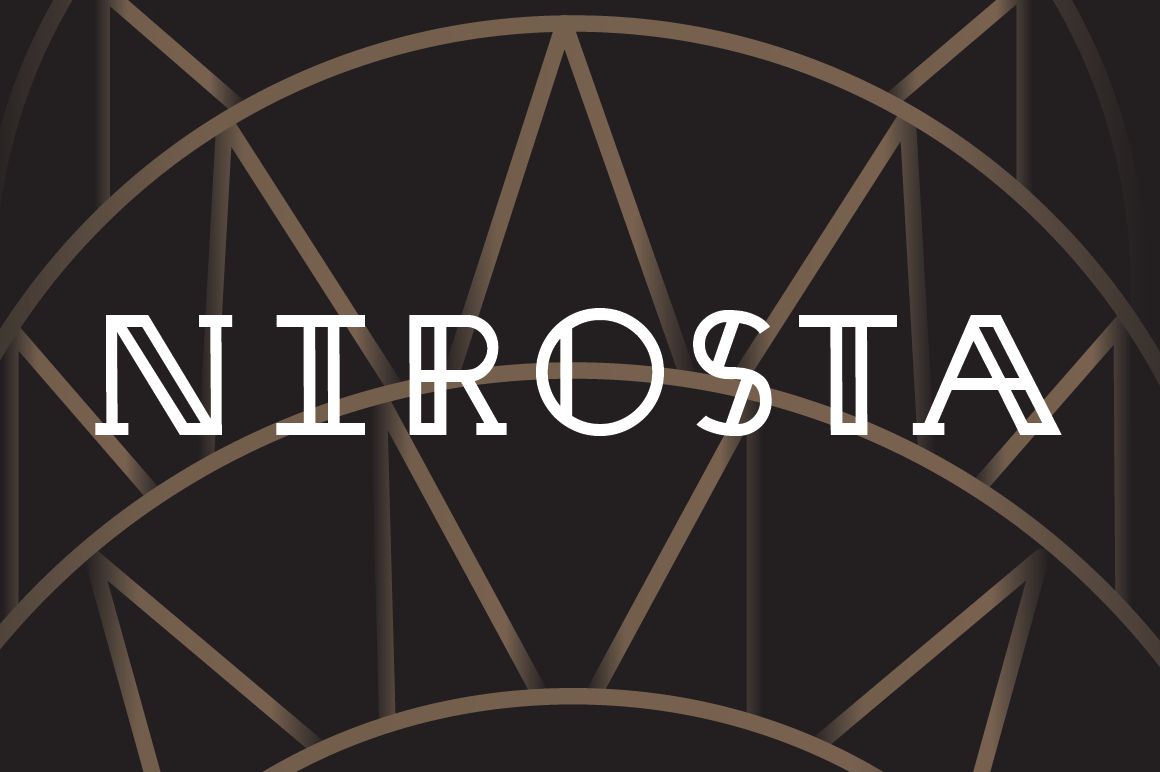
Nirosta Typeface
Space and light and order. Those are the things that men need just as much as they need bread or a place to sleep. —Le Corbusier
Nirosta is a display face inspired by the art deco era and named for the steel crown of the Chrysler Building. It takes its cues from steely machine age shapes and Radio City Music Hall.